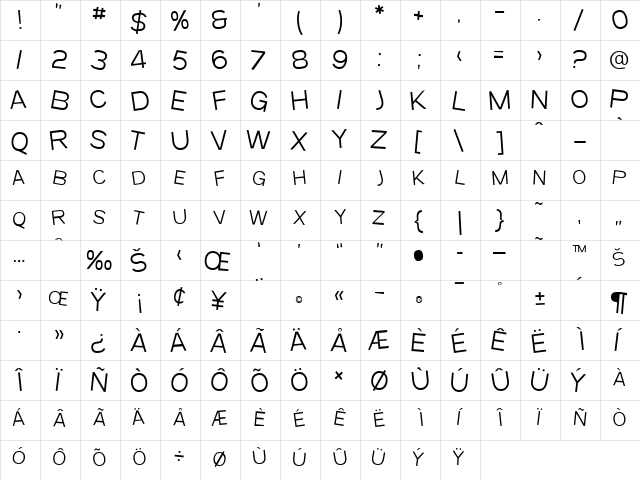
SF Beaverton SC Light
Design Context for SF Beaverton SC Typeface
SF Beaverton SC takes a measured approach to typography — its balanced proportions and neutral character make it a reliable workhorse for both digital and print work. Its slender proportions lend an understated elegance to any composition.